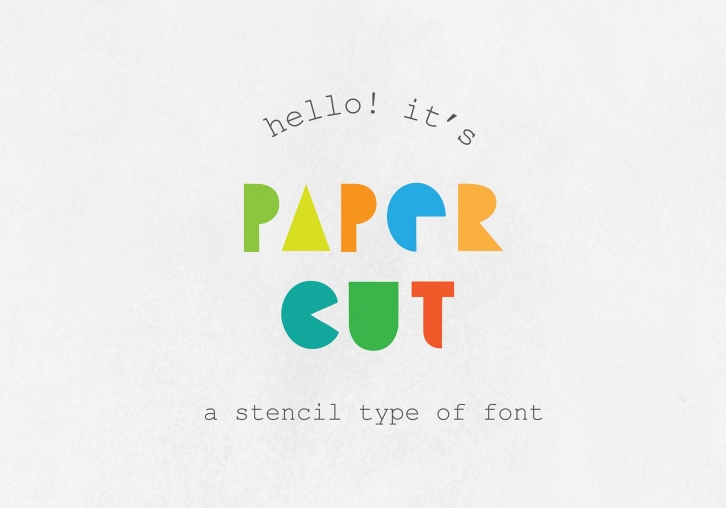
A geometric, stencil type of font, created for cut-outs and laser-cut letters. All characters are in one solid piece. Great for playful typography too.